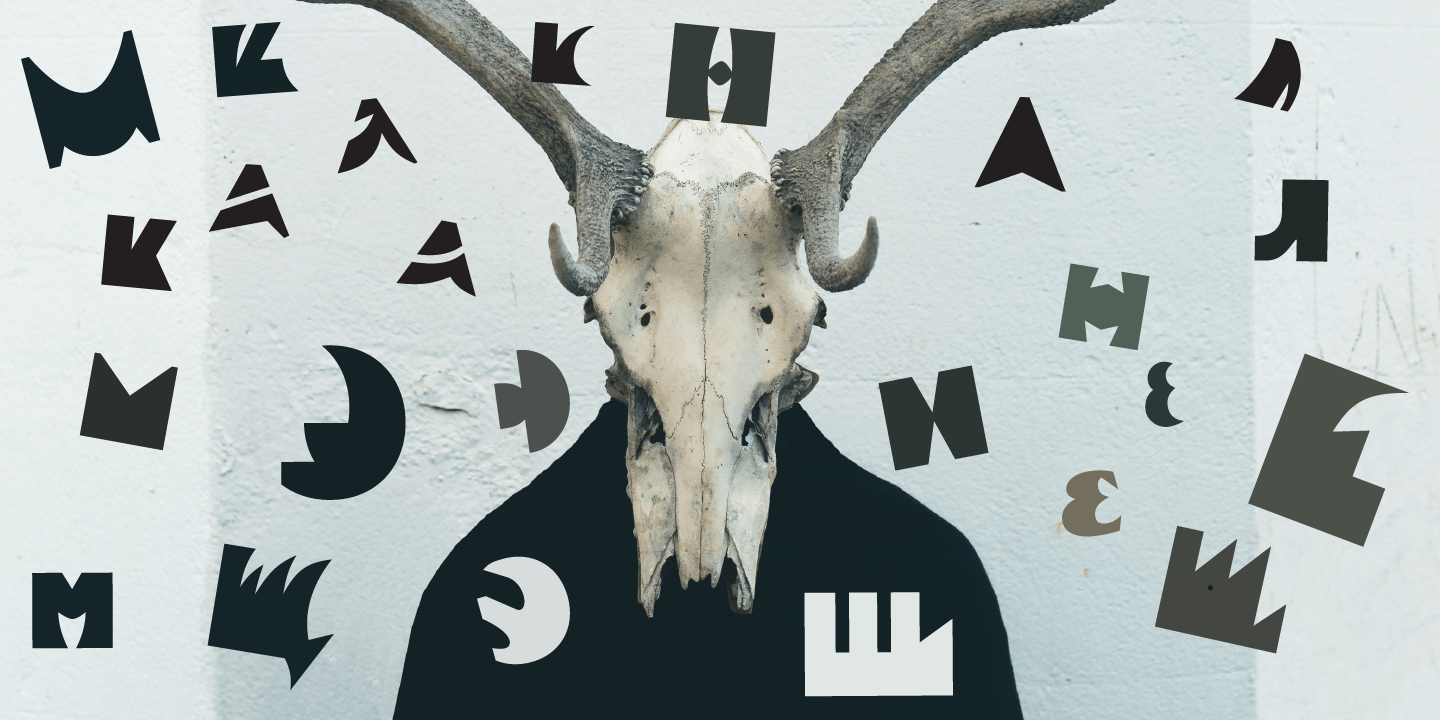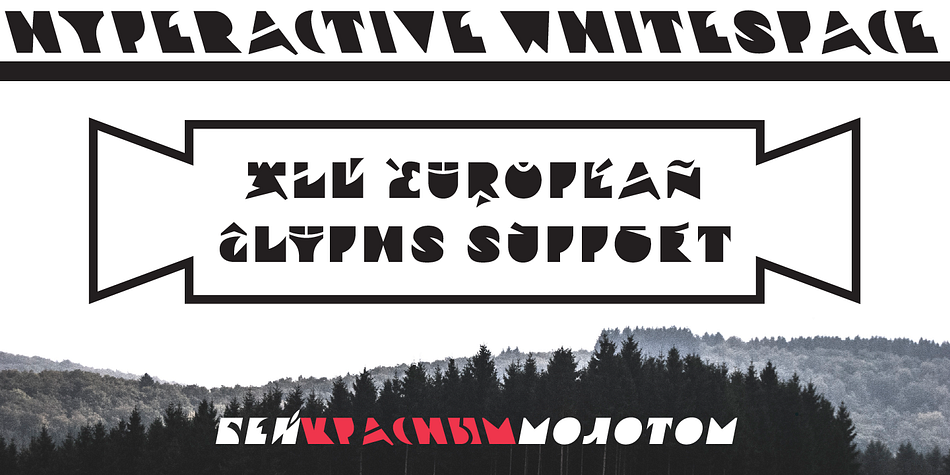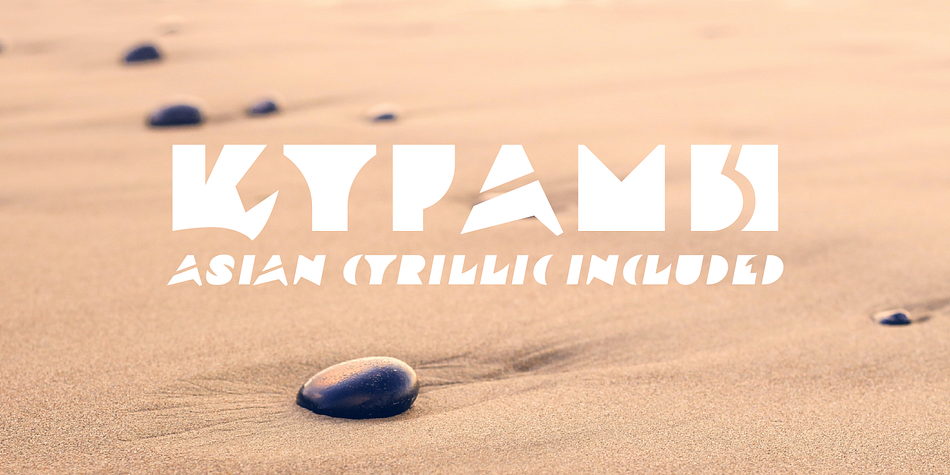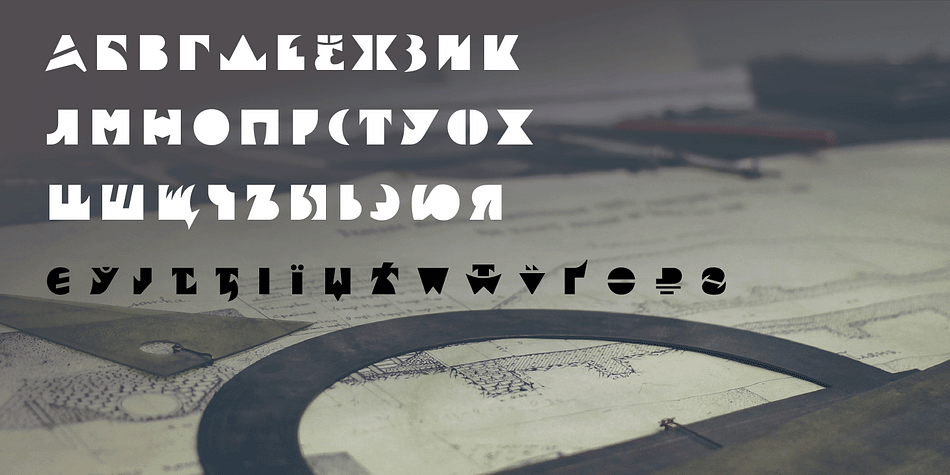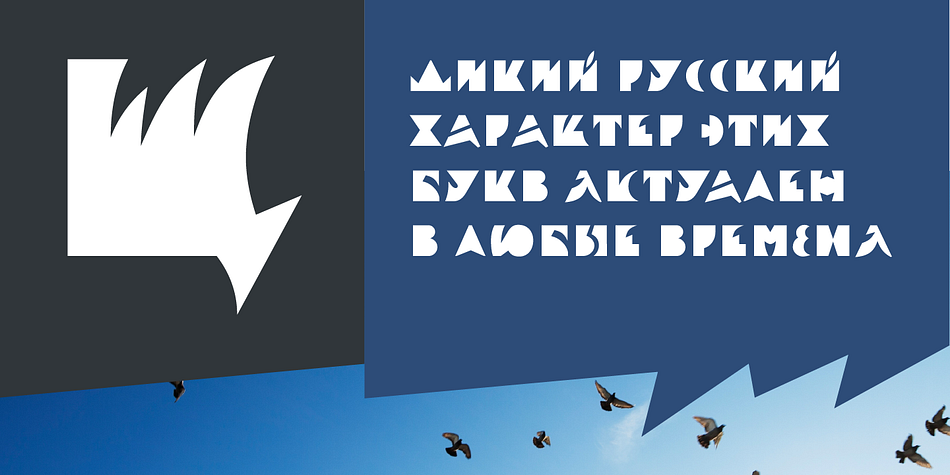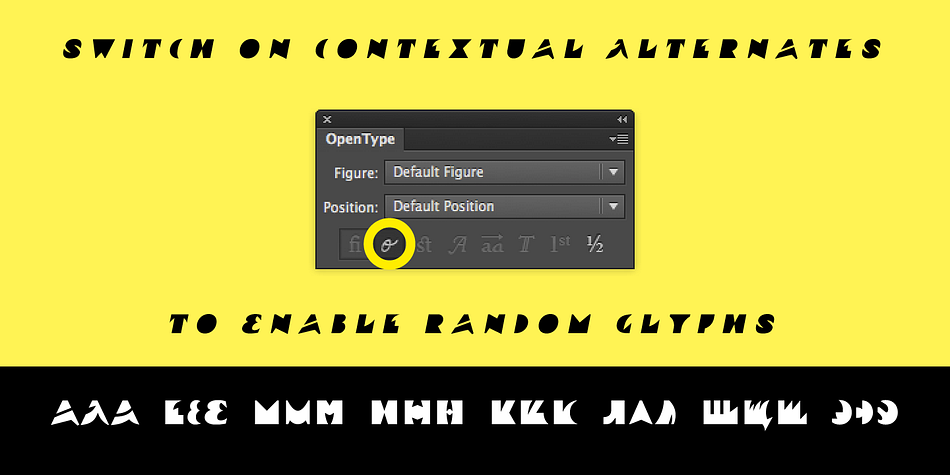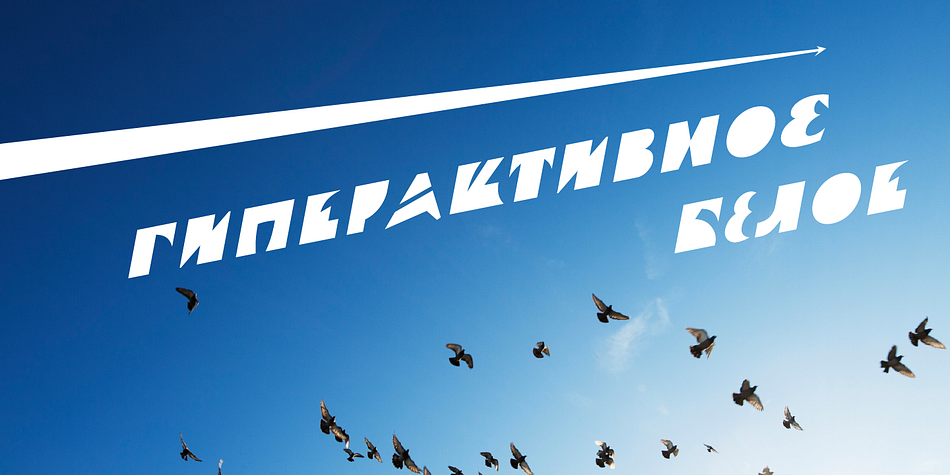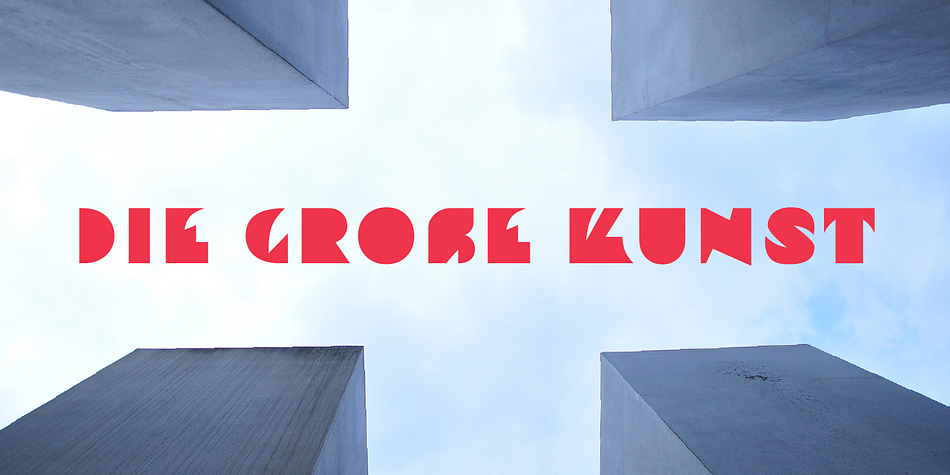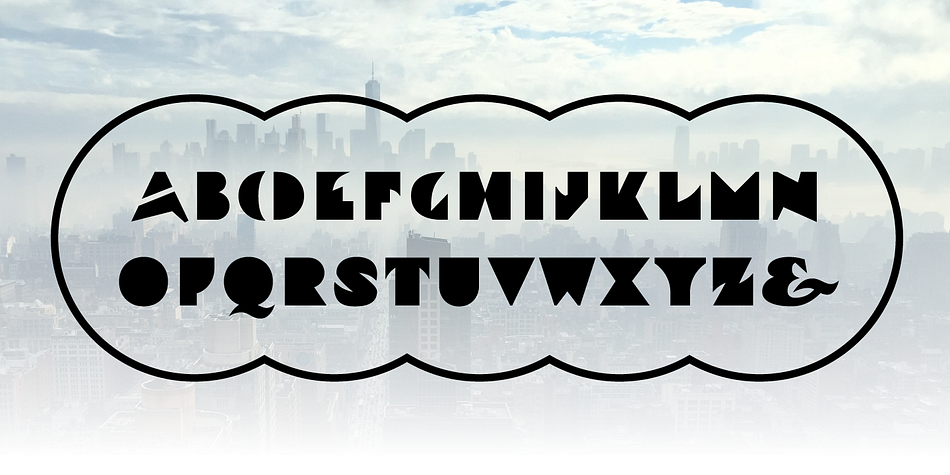
Designed by Dmitry Goloub, Ardent is a display font family. This typeface has three styles and was published by Thundertype.
Ardent is a typeface inspired by the late works of a Russian genius artist Sergey Chekhonin.
Ardent is a proof that the bizarre, revolutionary Cyrillic letterforms of 20s are still decent for use in modern design, even in Latin script. It is highly ornamental and lapidary (thus must be used with great care). Ardent supports many languages.
Ardent forces you to think about letters not as about lines (bold or thin) but as about spots. The black masses with different contours, that create some great tension in the whitespace.
Ardent is powerfully OpenTyped. It features random glyph variation for certain letters! It’s all maintained by contextual alternates. Ardent is a living thing! The letters change automatically as you type. Digits also work best when contextual alternates are on.
Is also works great as dropcaps, combined with some neutral text typefaces. It can be cut as a stencil as well!